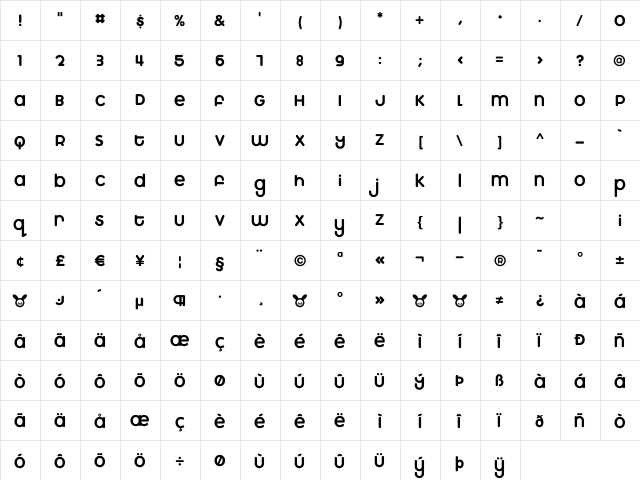
MarshmallowRegular Font Preview
MarshmallowRegular Regular
MarshmallowRegular Font Details
Design Context for MarshmallowRegular Typeface
MarshmallowRegular is a composed and adaptable typeface that performs quietly and consistently across a wide range of design contexts.